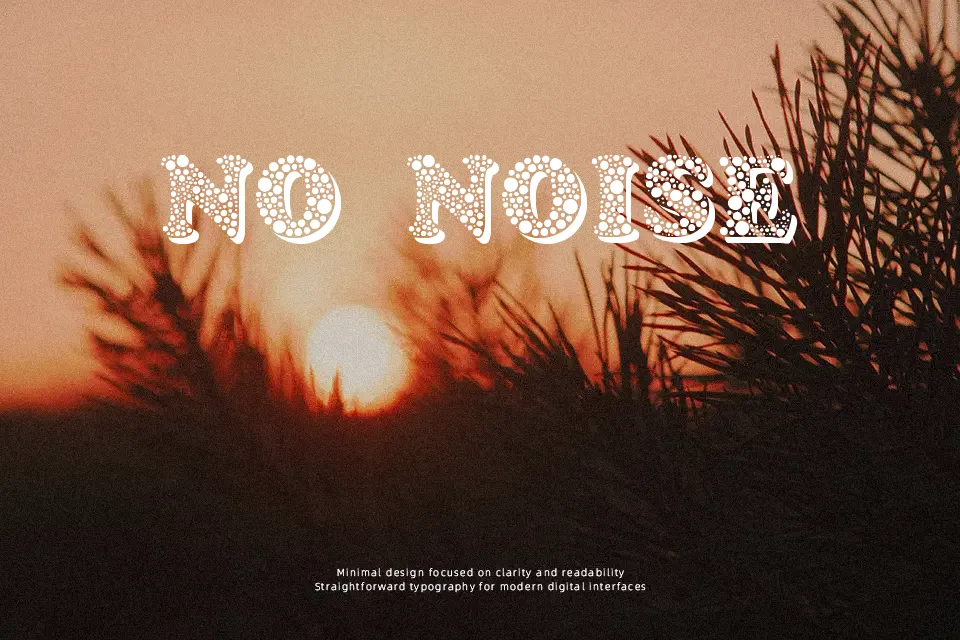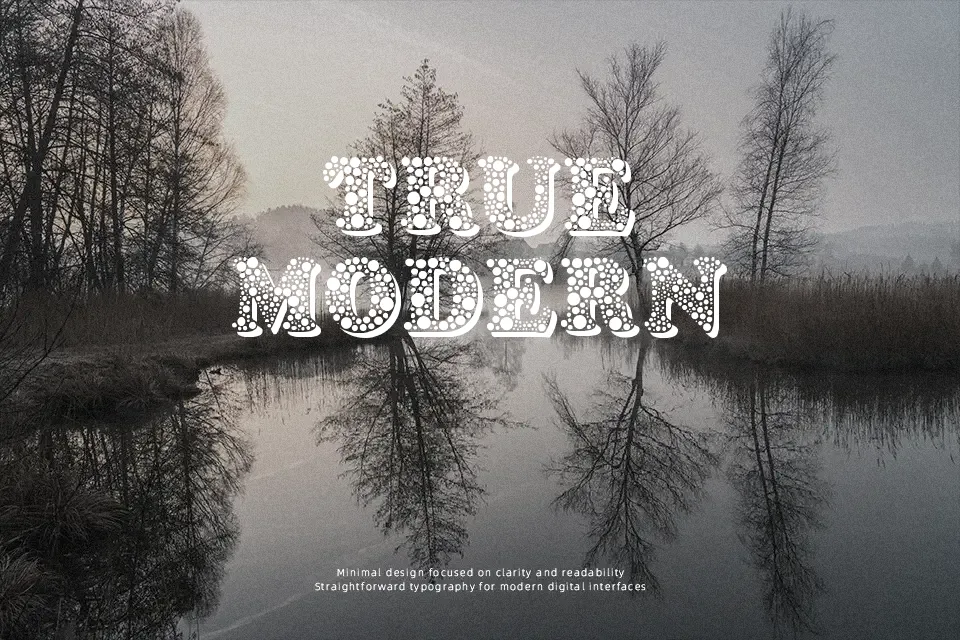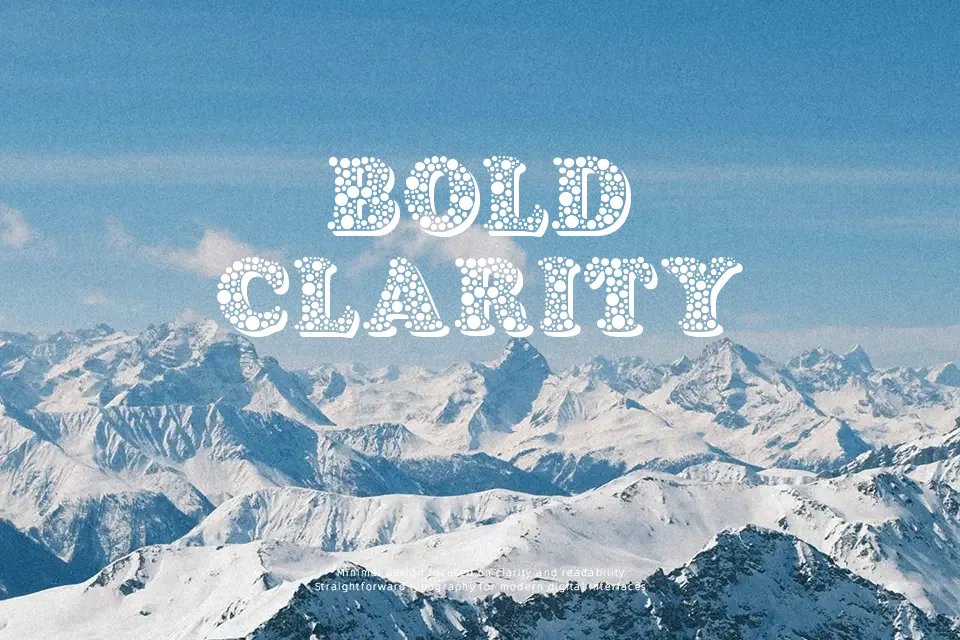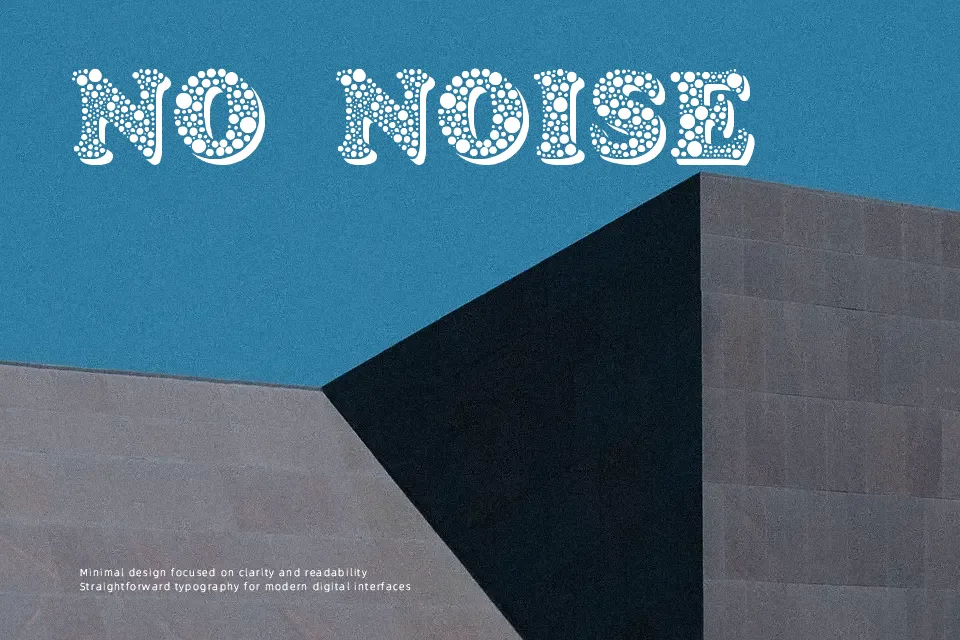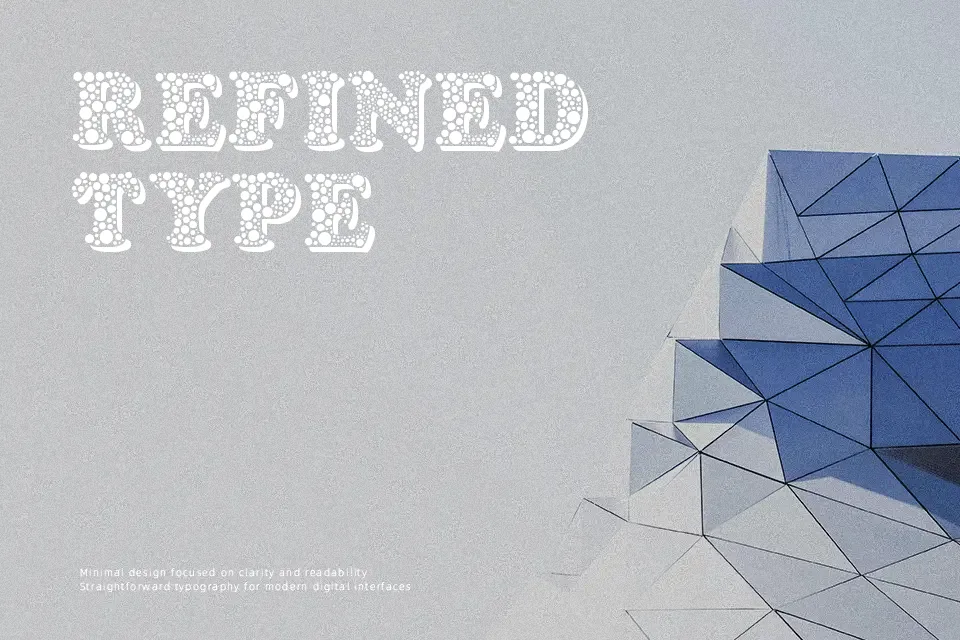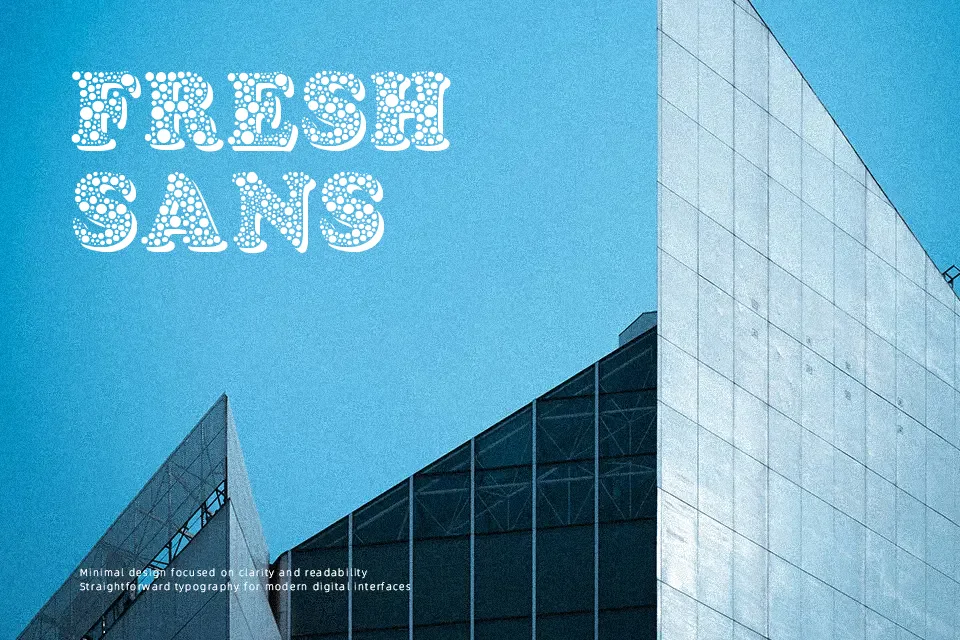
Bemydor Font
Bemydor leans hard into the decorative end of the spectrum — its chunky, rounded letterforms carry visible dot patterns and shadow effects that give each character a tactile, almost three-dimensional quality. The spacing is generous enough to let those details breathe, but don’t mistake that openness for versatility. This font earns its place on poster headers, carnival-style event materials, and whimsical product packaging where visual noise is a feature, not a flaw. At body text sizes or in dense compositions, the patterned fill collapses into visual clutter — that’s a hard ceiling on where it can go. For designers who want something with clear personality without hand-lettering from scratch, it delivers a quick tonal hit; just keep it to display roles and pair it with a clean, neutral typeface underneath.
– Party poster headlines and event flyers
– Novelty product packaging labels
– Kids’ birthday invitation headers
– Social media title graphics
– Body text or multi-line copy
– Corporate or professional branding
– Small-size print applications
– Minimalist or editorial layouts
Perfect for holiday, invitation, and packaging, with a creative and decorative style.